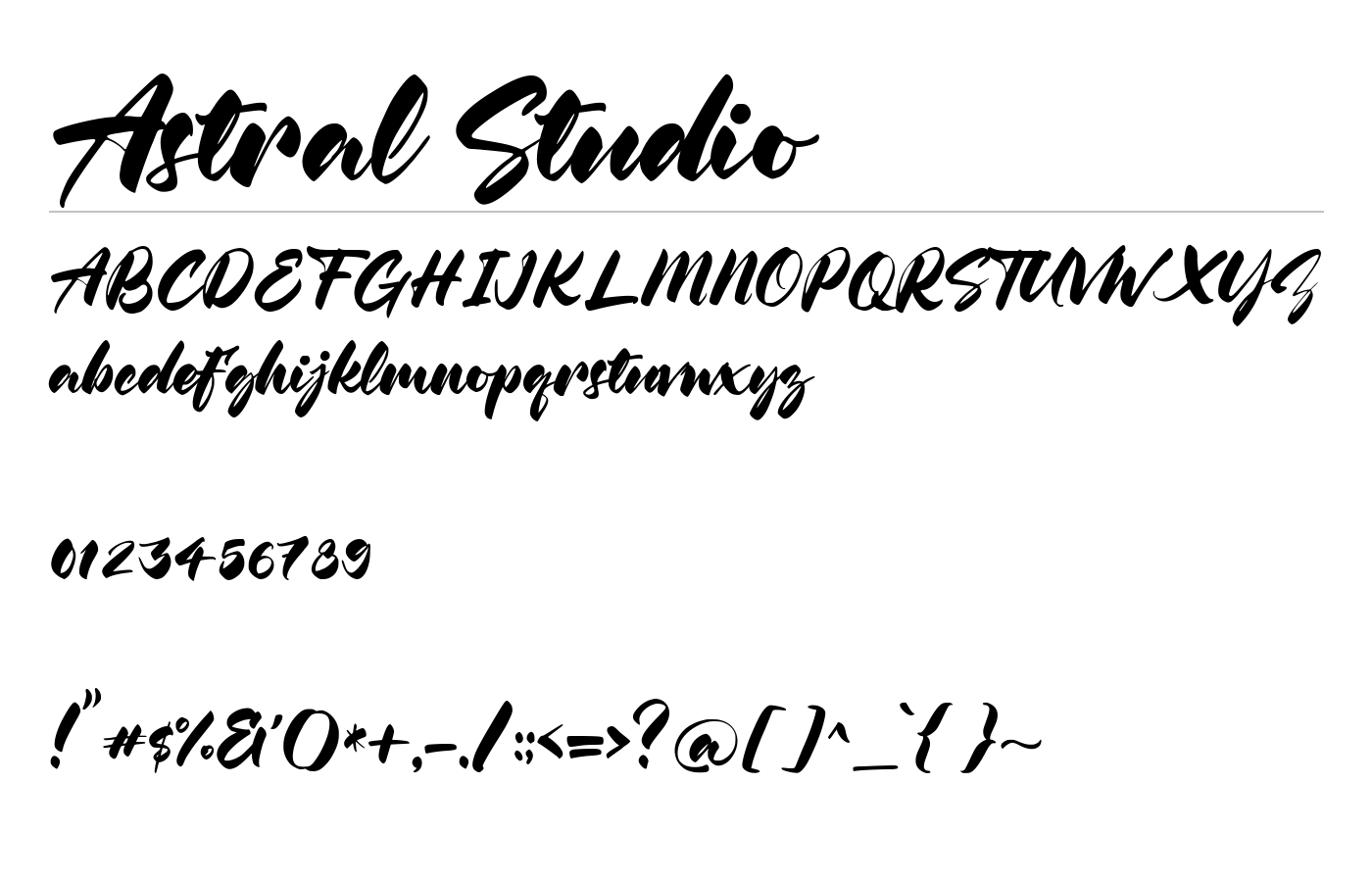
Astral Studio is a bold, expressive script font that combines a lively, hand-painted feel with smooth, flowing strokes. Its slightly condensed letterforms and pronounced brush textures give it a dynamic, artistic personality, perfect for creative branding, stylish headlines, and eye-catching packaging. This font works well where a personal, energetic touch is needed, bringing a modern yet handcrafted charm to any design.
Astral Studio Font
About Astral Studio Font
| Font family | Astral Studio Font |
| Designer | Octotype |